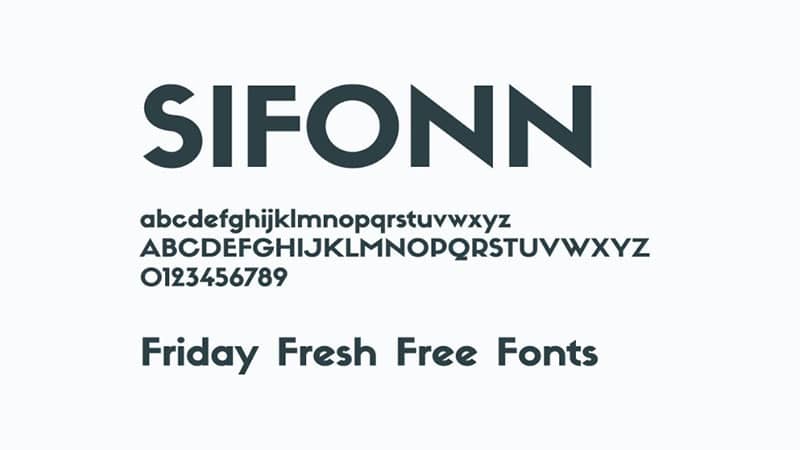
Sifonn Font Download Free
Sifonn is a sans serif font designed by Rafa Goicoechea. Its plain shapes suit headings and short text. The download, font details and license notes are below.
About the Sifonn font
Designers reach for sans serif fonts when they want a direct, uncluttered look. Sifonn fits that role in posters, slides, simple logos and social posts.
Sifonn works well for headings and short labels. For longer text, keep the lines fairly short, around 60 to 70 characters, so readers can follow them without losing their place.
What font is Sifonn?
Sifonn is a sans serif font designed by Rafa Goicoechea. It comes as OTF and TTF files.